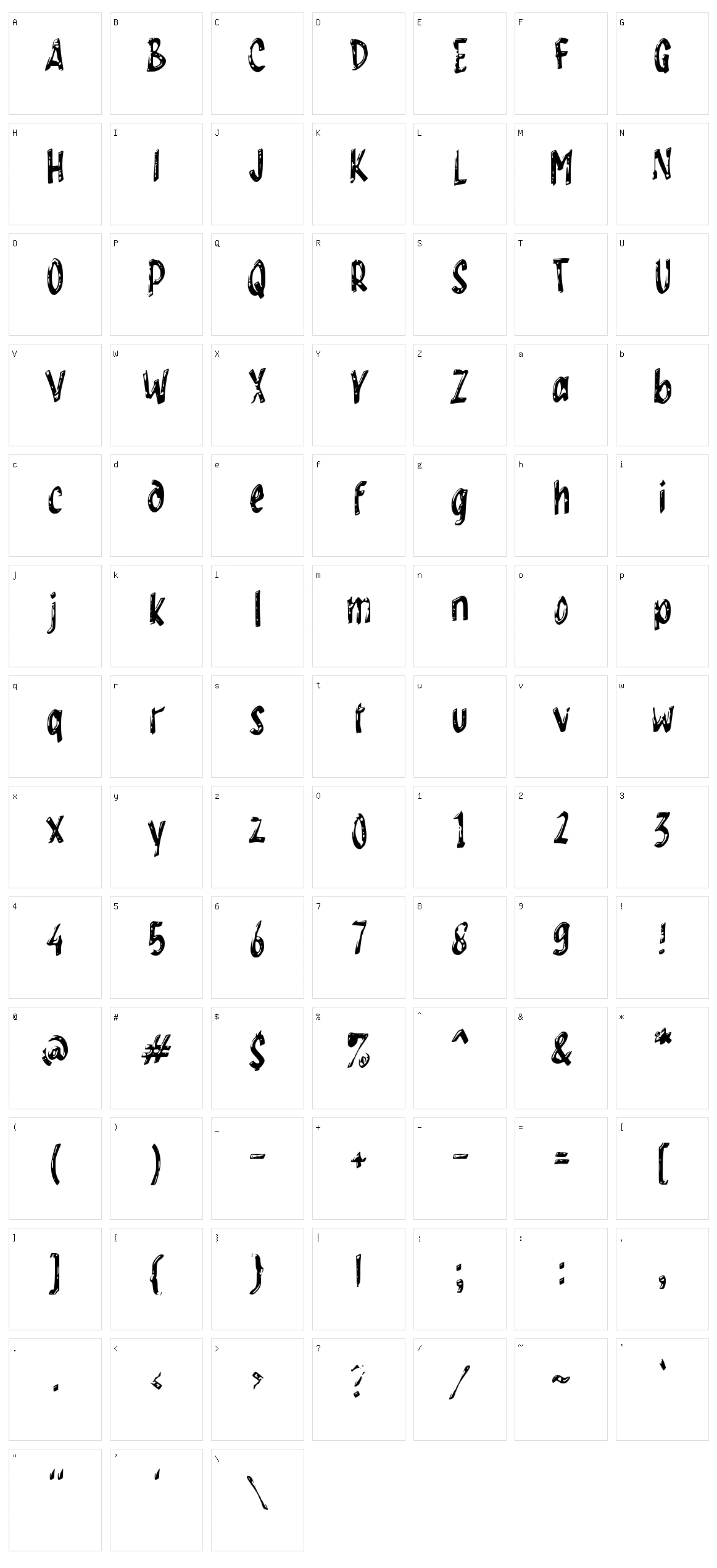
The free font f Framboz is carefully designed by wep, showcasing a thoughtful balance of creativity and usability and falls under the Eroded font style. When you download the ZIP file, it contains only 24.15 KB of font files, making it lightweight and quick to download. Please review the license details below to understand permitted usage and distribution rights. If license information is not available, we recommend using this font for personal projects only or contacting the author directly for commercial usage permissions.